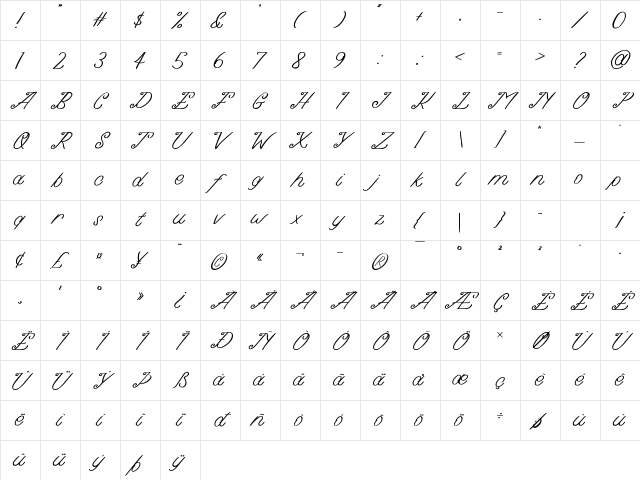
Complete Bridge of Astania Regular glyph index. Displaying only characters natively supported by Bridge of Astania Regular font.
Bridge of Astania is a composed and adaptable typeface that performs quietly and consistently across a wide range of design contexts.